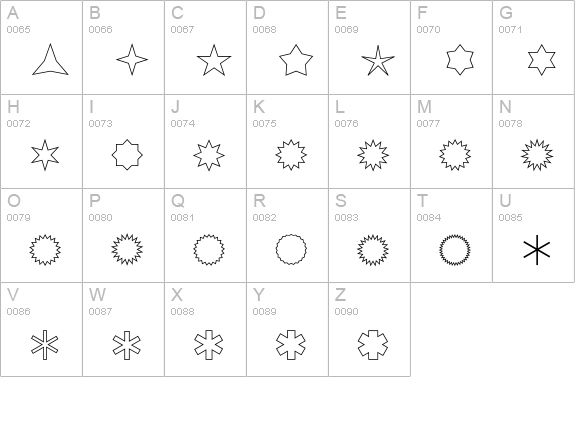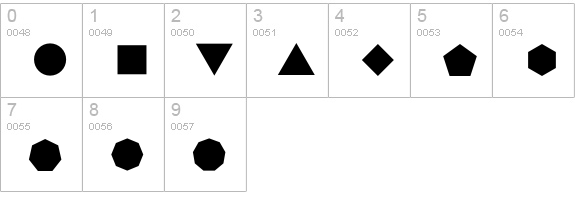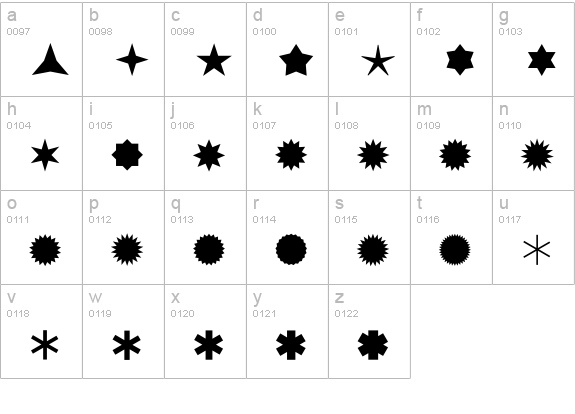
StarburstFont Font Details
StarburstFont is a captivating and dynamic display font that captures the essence of starbursts and radiates a sense of energy and excitement. With its bold and playful letterforms, this font is perfect for grabbing attention and making a statement. Whether you're designing a poster, logo, or any other creative project, StarburstFont will add a touch of vibrancy and personality. What sets StarburstFont apart is that it is not only visually stunning, but it is also free to download. Yes, you read that right - this fantastic font can be yours for absolutely no cost! It's the perfect choice for designers on a budget or anyone who appreciates high-quality typography without breaking the bank. To get your hands on StarburstFont, simply head over to FontsMarket.com, a leading online platform for free fonts. There, you can easily find and download this font in a matter of seconds. With just a few clicks, you'll have access to a font that will elevate your designs and make them truly shine. So why wait? Don't miss out on the opportunity to add StarburstFont to your font collection. Download it today from FontsMarket.com and let your creativity burst forth with this stunning and freely available font.